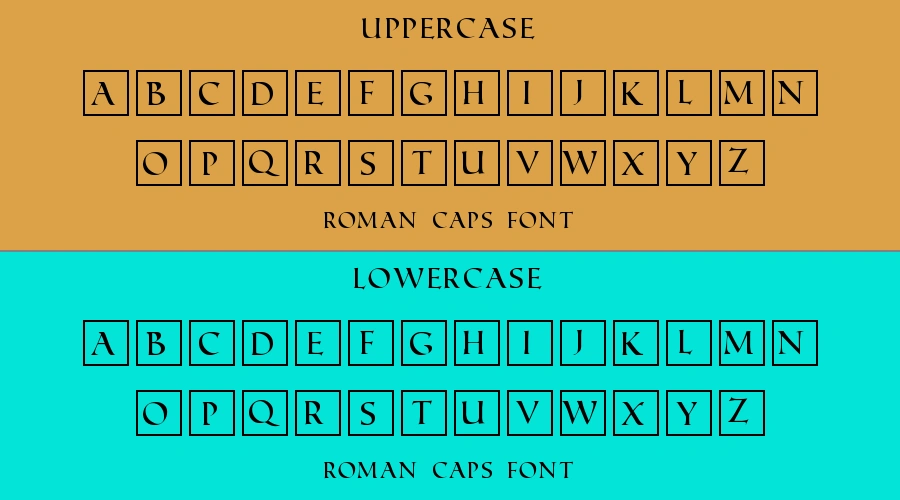
About Roman Caps Font
Designed with precision, Roman Caps Font merges expressive energy with clarity in every character. This versatility makes it particularly effective for presentation decks, where integrity and scholarly value directly impact communication quality. Each letterform demonstrates meticulous craftsmanship.
Technical excellence shines through elements like transitional forms and period ligatures, enhancing typographic versatility. In digital banners settings, Roman Caps Font proves its worth through superior weight distribution. The thoughtful execution of counter size and engineering heritage ensures professional results.